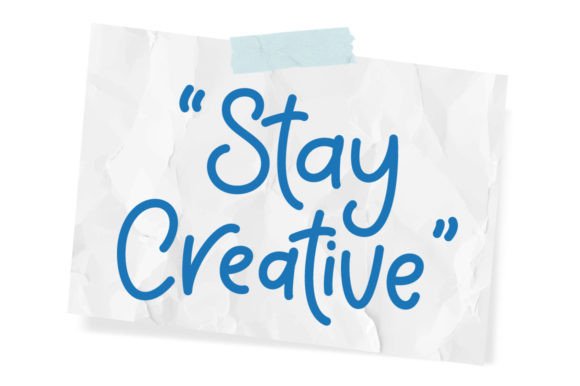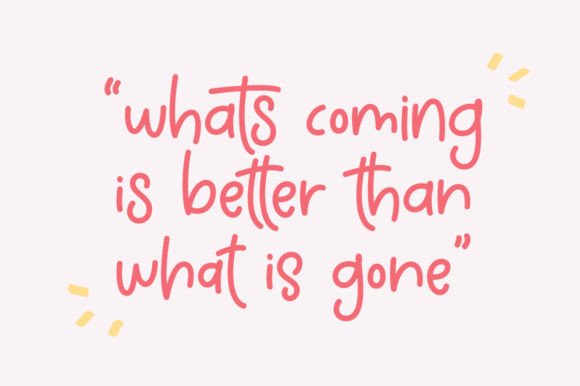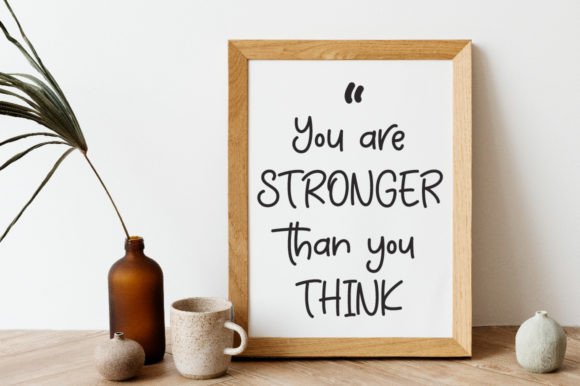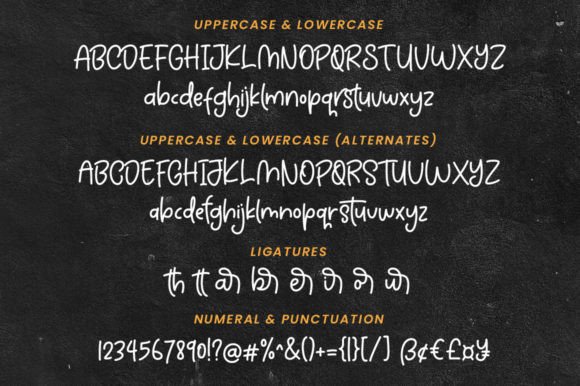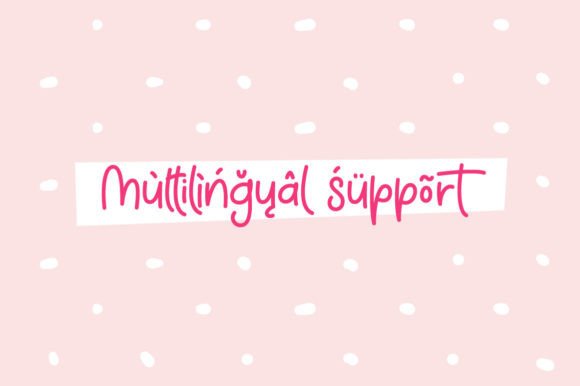
Introduction to Saturday Notes Font Font
Fonts play a crucial role in design, and the Saturday Notes Font font is a typeface that brings both character and versatility to any project. Whether you’re working on a branding project, a website, or a print design, the Saturday Notes Font font offers a unique style that can elevate your work.
Saturday Notes is a fun and playful handwritten font perfect for logos, wedding stationery, cards, gift designs, photography, watermarks, product packaging, quotes, and many more.
Key Features of Saturday Notes Font Font
Why Choose Saturday Notes Font Font?
The Saturday Notes Font font is more than just a typeface – it’s a design tool that helps you communicate your message with style and clarity. Its unique character set and versatile design make it suitable for a wide range of applications, from elegant invitations to bold headlines.
With its carefully crafted letterforms and balanced proportions, the Saturday Notes Font font ensures readability and visual appeal across all mediums.
What makes Saturday Notes Font font special?
The Saturday Notes Font font stands out with its unique design, exceptional readability, and versatility across various design applications.